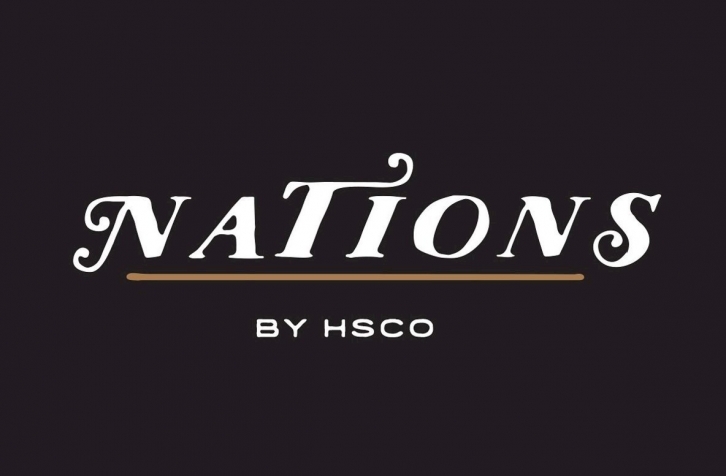
American Tradition is an Americana inspired typeface. "American Tradition" is a hand drawn font with interesting capital letters and alternative characters. This typeface gives a nice vintage feel to your work that may help you to achieve what your client has in mind. "American Tradition" comes in .OTF form made for the English language. It comes with all glyphs found on your keyboard and then some.